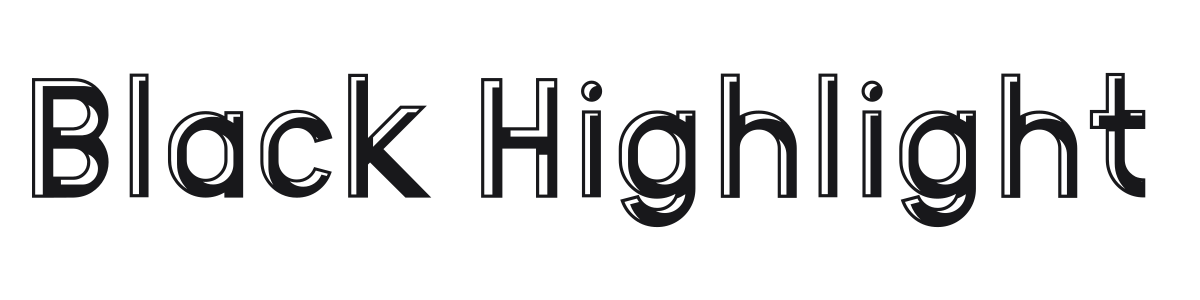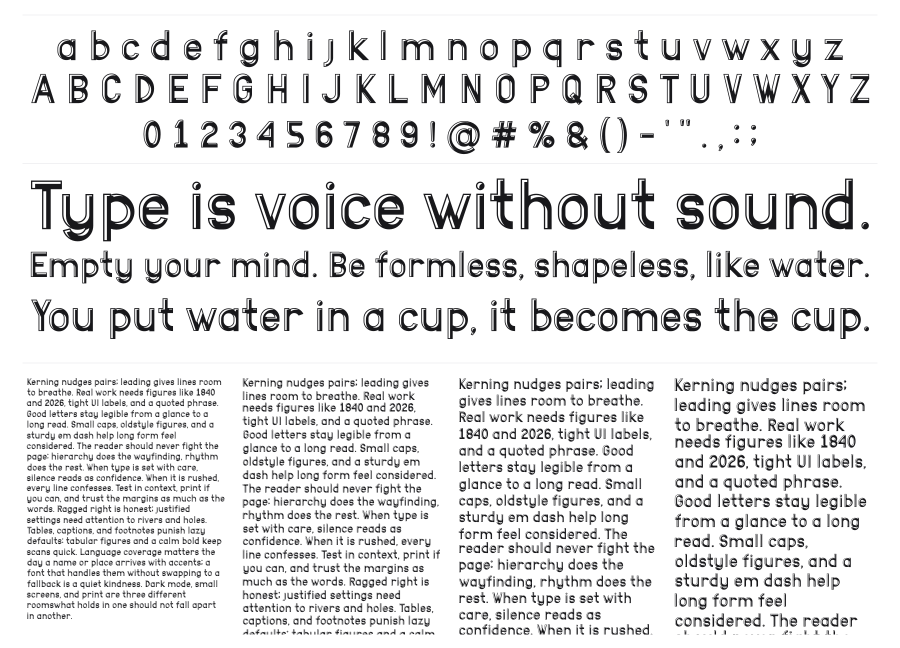
Black Highlight
by Indra Gunawan
Black Highlight is a bold rounded sans with a built-in inline highlight that makes each letter look raised or illuminated. The wide, chunky characters and soft rounded terminals give it a warm, casual energy. Works best at large sizes where the outline detail has room to breathe.